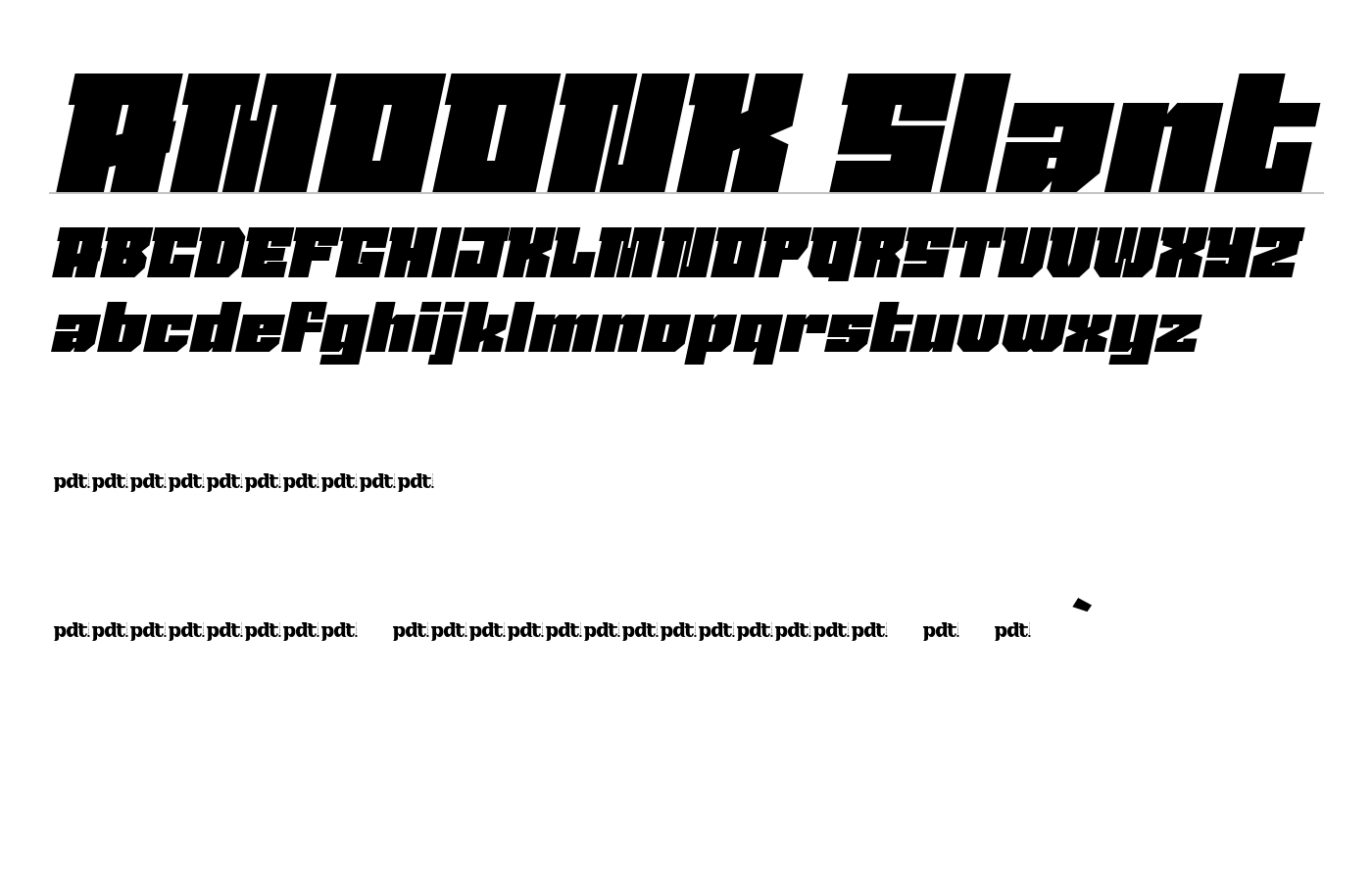
AMOONK trial is a bold, condensed sans serif typeface with a strong slant that gives it a dynamic, forward-moving energy. Its heavy weight and blocky, sharp-edged letterforms make it highly impactful and ideal for attention-grabbing headlines, logos, and posters where a modern, powerful, and slightly aggressive tone is desired. This font works best in display use where its unique angular style can stand out and convey confidence and strength.
AMOONK trial Font
About AMOONK trial Font